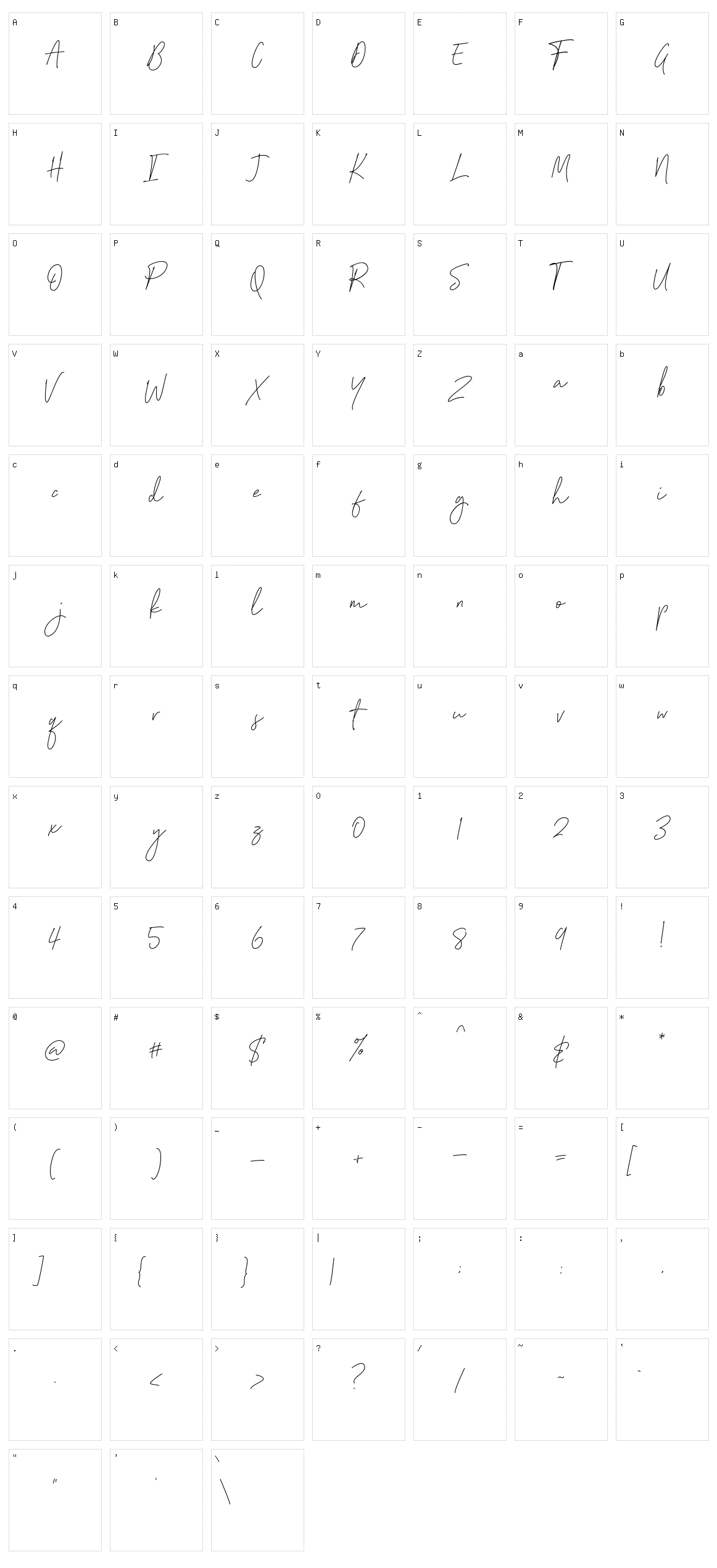
The free font Bulqeusfertom is carefully designed by Semar, showcasing a thoughtful balance of creativity and usability and falls under the Script font style. When you download the ZIP file, it contains only 27.11 KB of font files, making it lightweight and quick to download. Please review the license details below to understand permitted usage and distribution rights. If license information is not available, we recommend using this font for personal projects only or contacting the author directly for commercial usage permissions.